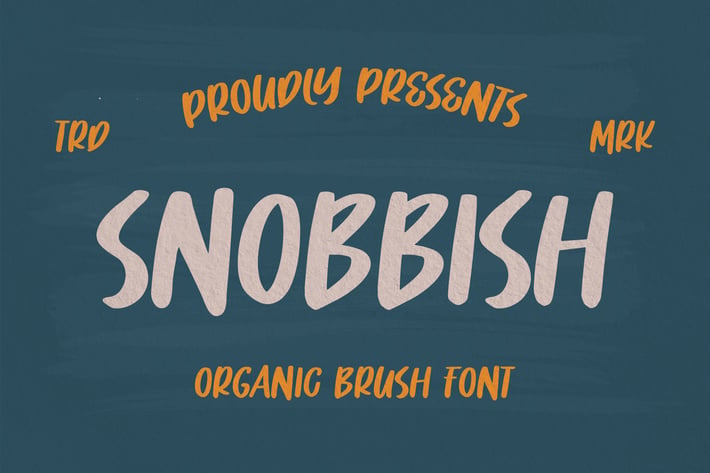
Snobbish - Organic Brush Font
Snobbish organic brush font, although this font is all uppercase, you can still explore with this font because it has a unique character.\
All Uppercase
Numbers and punctuation